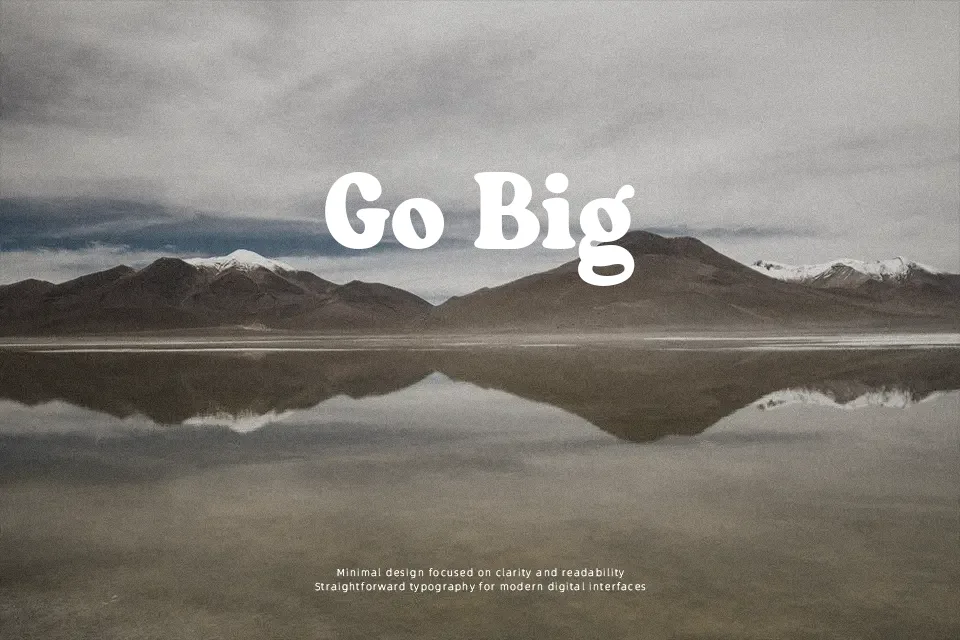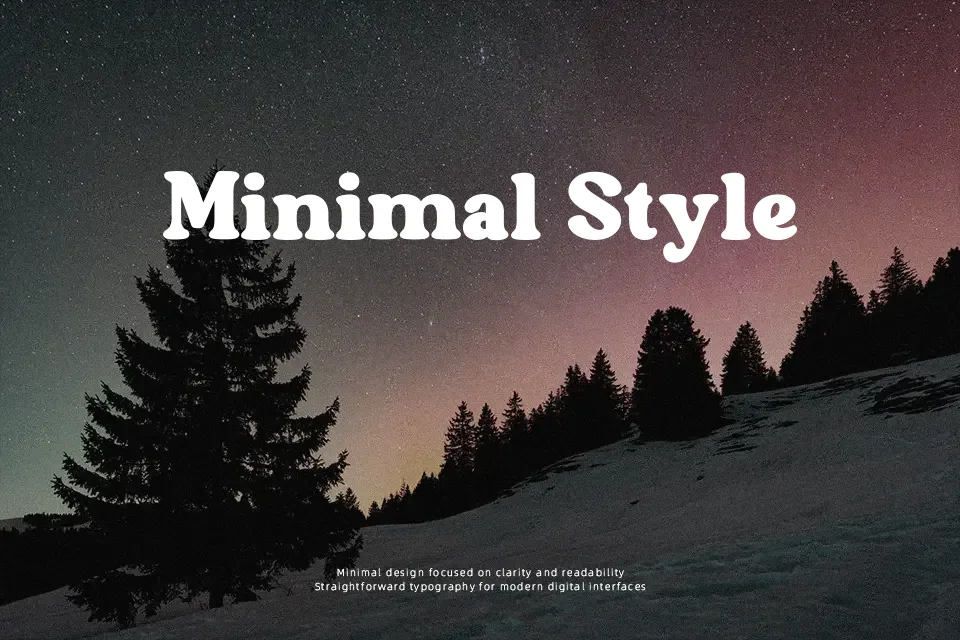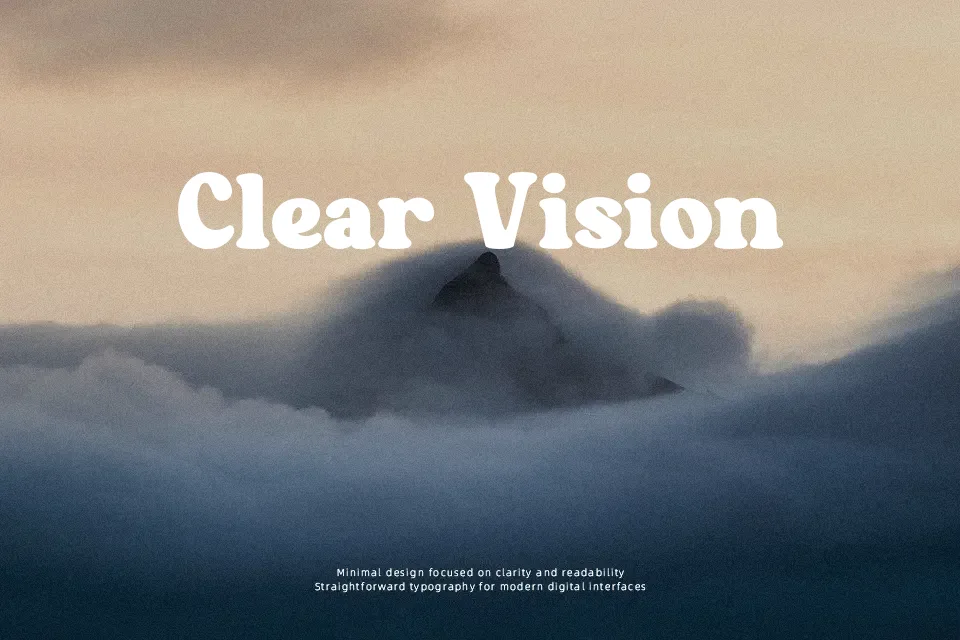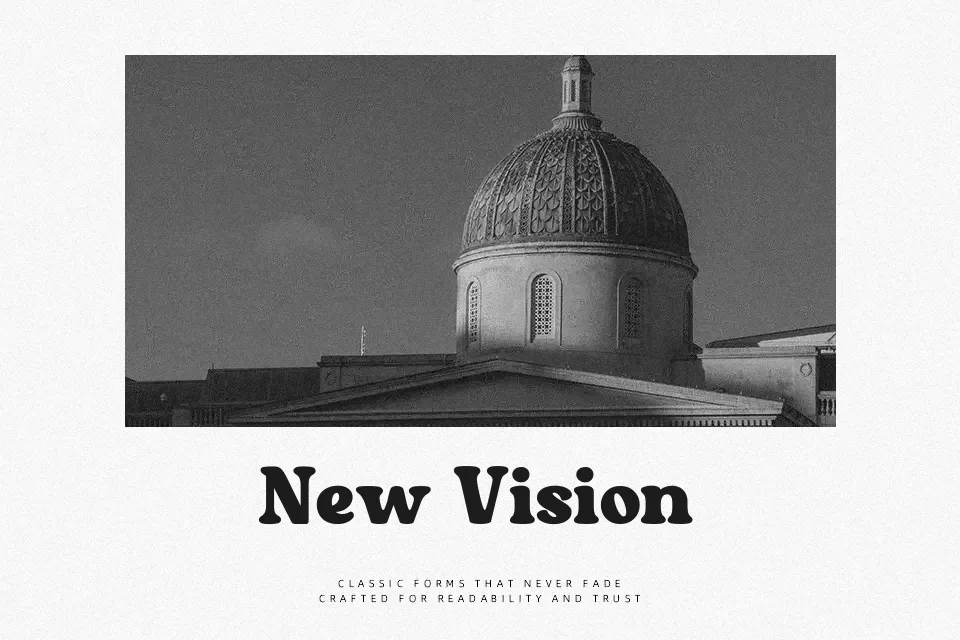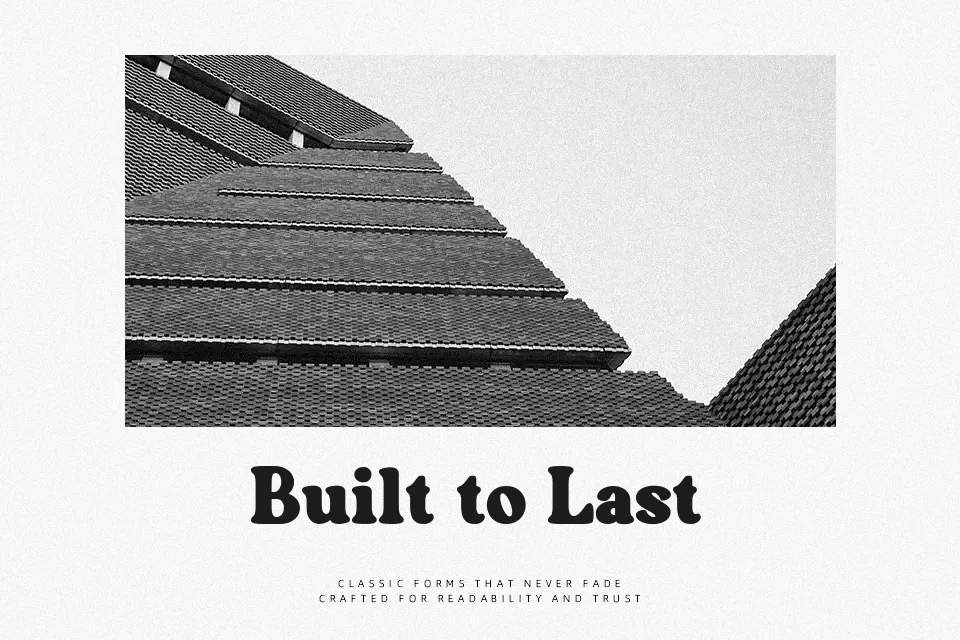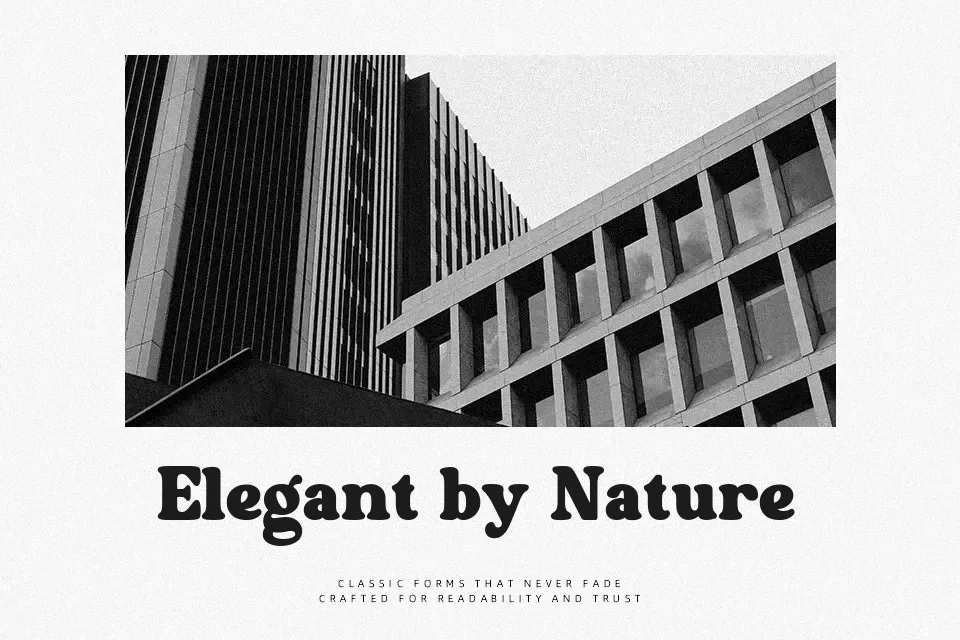
Sundori Font
Sundori Font features flared serifs, pronounced stroke contrast, and undulating stems that evoke classic twentieth-century display typography. The uppercase glyphs exhibit generous proportions with stylized curves, while the lowercase characters maintain consistent x-heights and snug kerning. In headline settings and title treatments, the typeface demonstrates strong visual cohesion and immediate retro flair. Spacing is intentionally compact, which reinforces rhythm in large compositions but compromises legibility in dense paragraph settings. Due to its decorative details and hairline transitions, the design becomes difficult to read at smaller point sizes. For maximum clarity, designers should reserve the letterforms for short statements, posters, and prominent display layouts.
Best For: vintage product packaging, music festival posters, craft beverage branding, magazine cover headlines
Not Ideal For: dense body copy, technical manuals, small interface labels, legal documents